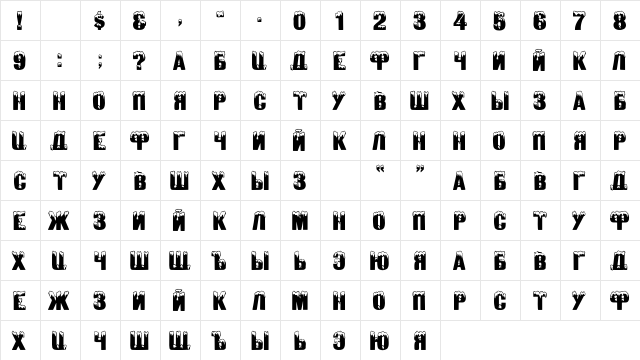
Zanesennyj Regular
Design Context for Zanesennyj Typeface
Zanesennyj is a composed and adaptable typeface that performs quietly and consistently across a wide range of design contexts.